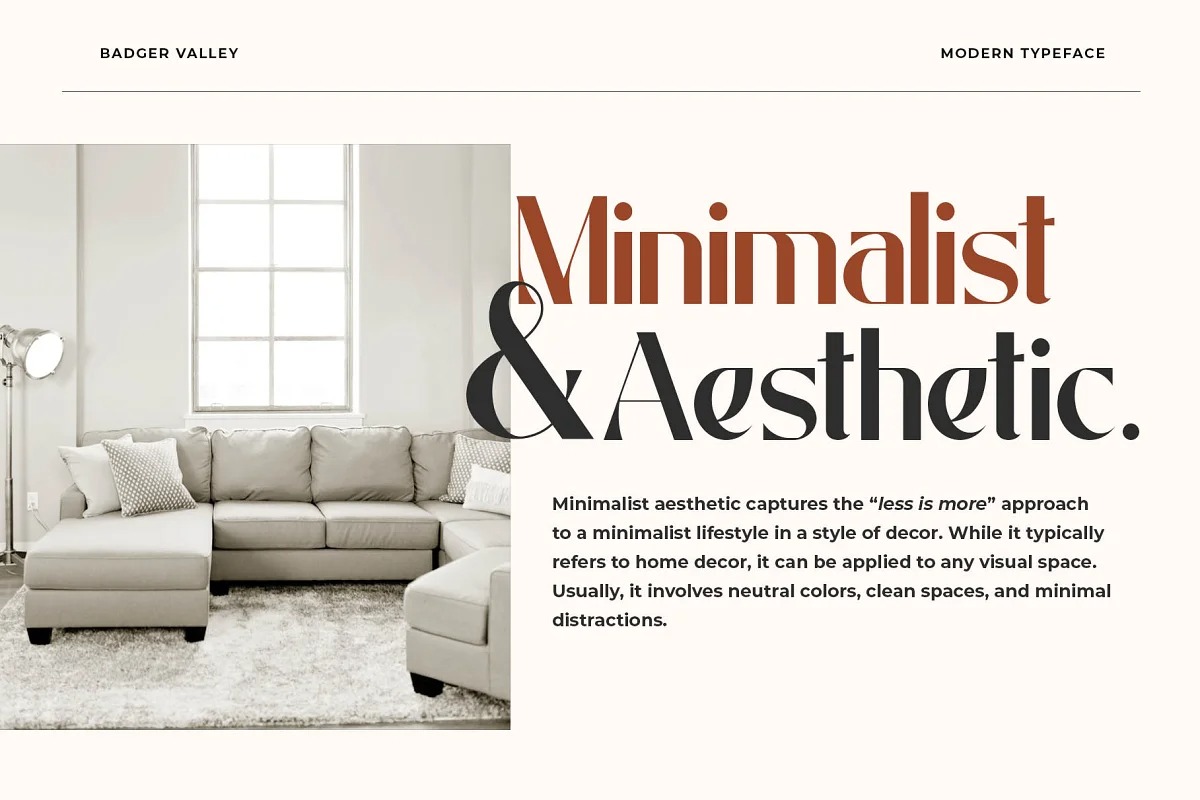
Badger Valley Sans Serif Font
This font is an elegant high-contrast sans serif. It can be used to create almost all types of design projects like print materials. It’s designed and shared by Heinzel Std. Fall for its ravishing style and use it to create gorgeous wedding invitations, beautiful stationary art, eye-catching social media posts, and much more! This font is PUA encoded which means you can access all of the amazing glyphs and ligature with ease!